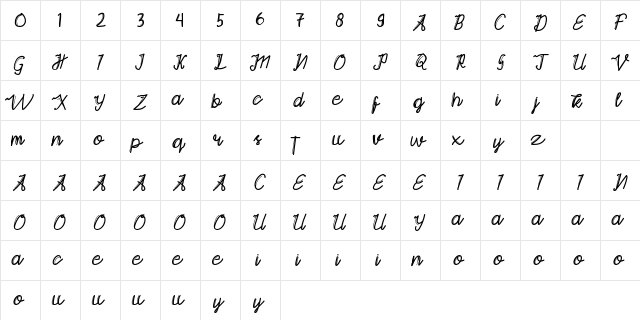
Gayatri Script Regular
Design Context for Gayatri Script Typeface
Gayatri Script brings a calligraphic fluidity to the page — its connecting strokes and expressive curves give it an unmistakably human quality.
Font Pairing: Combine Gayatri Script with a simple geometric sans for maximum contrast — the tension between flowing curves and clean structure is a classic typographic pairing.
Pro Tip: Use Gayatri Script for short runs of text — names, titles, or taglines. Extended body copy in script faces tires the eye quickly.